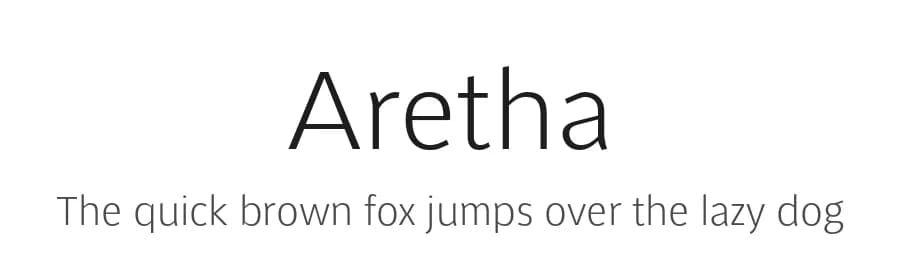
About Aretha Font
Aretha is a classy and beautifully designed sans serif. The main idea of Arteha is to combine the sans serif humanist font style with traditional styles so as to provide a pleasant atmosphere for the reader.
The horizontal side of Aretha is designed with a slightly thinner so that the counter can look wider and also looks stiff in some parts to give a firm impression on the letters.
Not only for display size, Aretha also works well in text size. Represents multilingual and is equipped with several OpenType features such as tabular figures and stylistic alternates in letters a, g, t and y, so this is very suitable to complement your various design needs.
- Light, Clean, Modern, Basic
Aretha Font is a versatile sans-serif font that works for both headings and body text. Pair it with a contrasting serif or slab serif font to add visual interest and a clear distinction between titles and body copy.